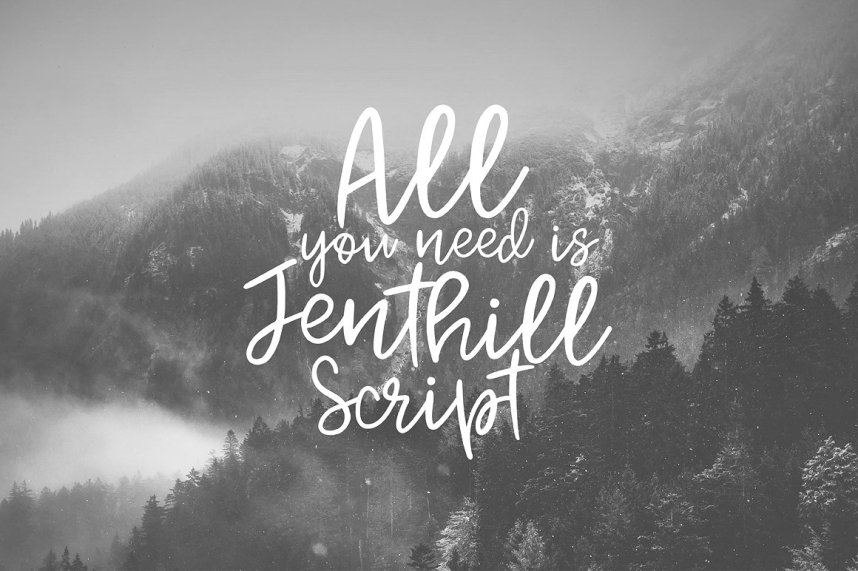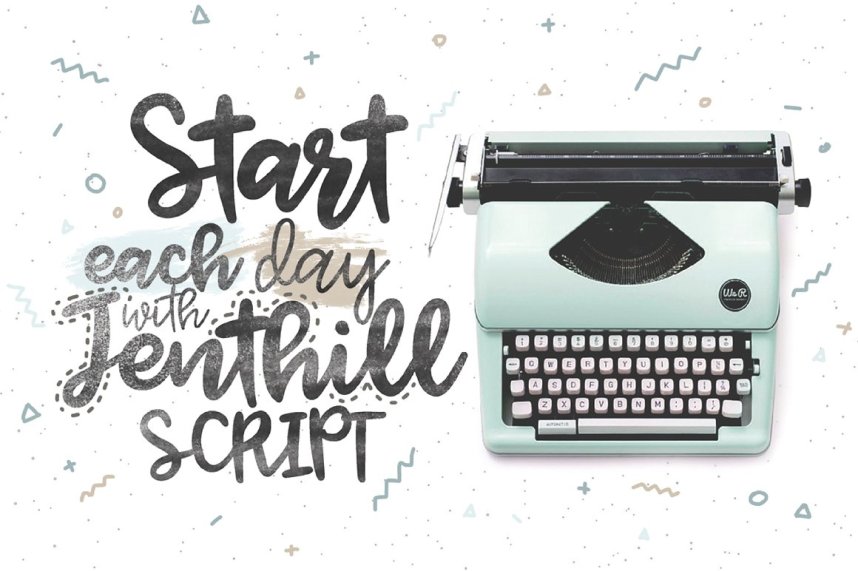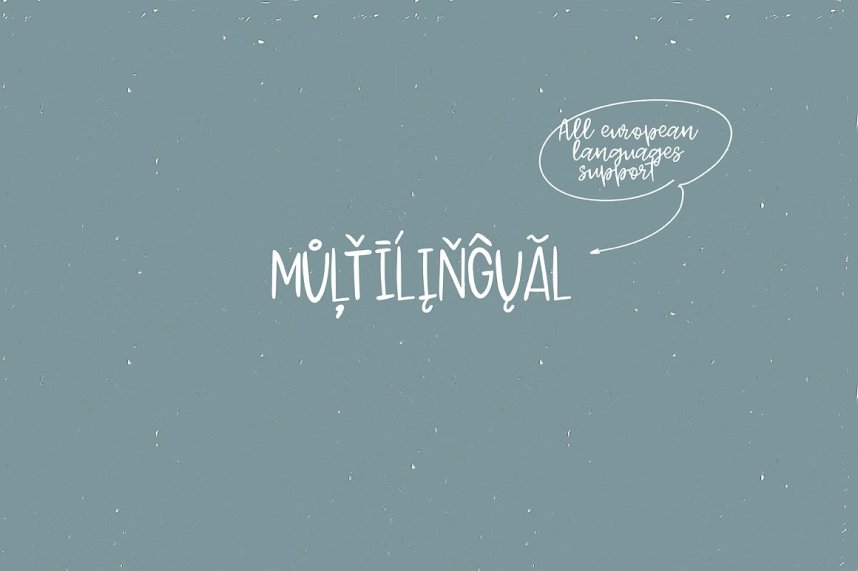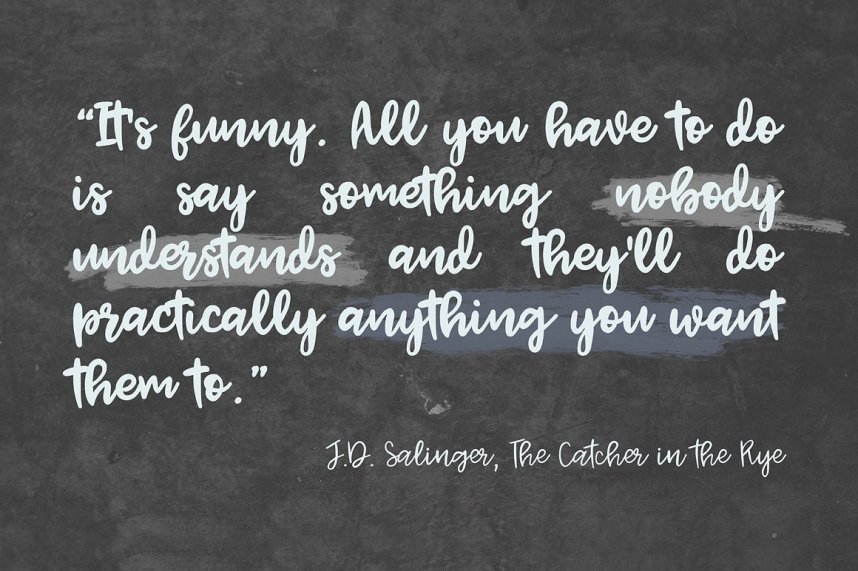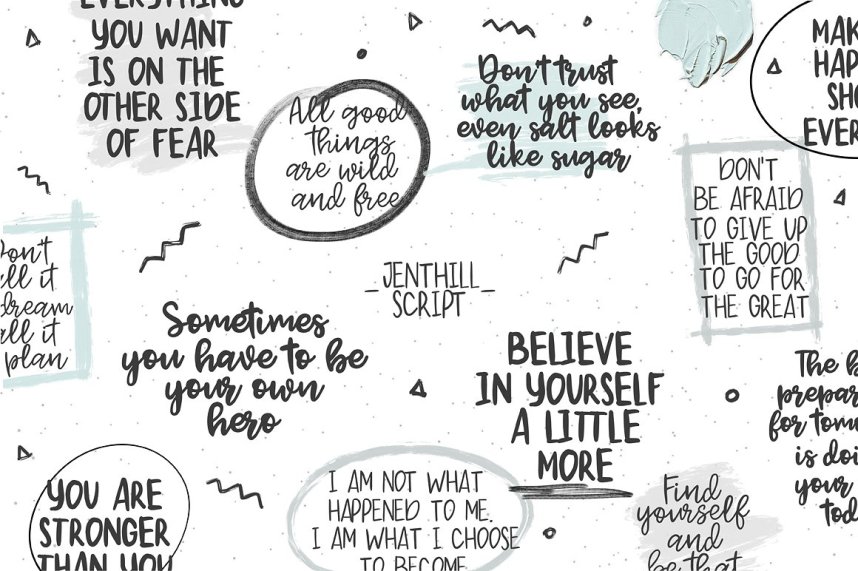
Jenthill Script Font
Introducing to you a script typeface family. Is a perfect handwriting style, you’ll need it round your design project. I think it is good for many different jobs. Introducing Jenthill Script Font! Jenthill designed by Katsia Jazwinska. a lovely font family which includes 4 font styles: a wonderful script typeface Jenthill , Jenthill Light, a delicate version of Jenthill
, 2 uppercase fonts Jetnthill Caps and Jenthill Light Caps which are perfect for headings.